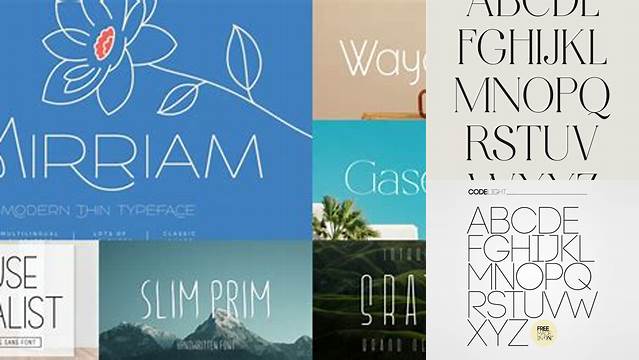
Thin Fonts: Your Ultimate Guide To Elegant Typography
In the realm of typography, thin fonts stand as a testament to minimalist elegance and modern design sensibilities. These fonts, characterized by their slender strokes and delicate appearance, have become increasingly popular in various applications, from branding and web design to print materials and user interfaces. This comprehensive guide delves into the world of thin fonts, exploring their characteristics, advantages, and best practices for effective utilization. We will discuss the nuances of selecting, pairing, and implementing these fonts to achieve the desired aesthetic and convey the intended message. So, guys, let's dive into the world of thin fonts and unlock their potential!
Understanding the Essence of Thin Fonts
Thin fonts are defined by their exceptionally light weight, where the strokes of the characters are significantly thinner than those of standard fonts. This characteristic lends them a refined and airy quality, making them ideal for projects that require a touch of sophistication or a modern, minimalist aesthetic. The primary purpose of thin fonts is to provide an understated elegance. They don't scream for attention but rather whisper their message with subtle grace. They allow other design elements to shine, and are excellent for when you want to highlight content without having the font itself be the focal point. They work well in conjunction with other heavier fonts to create contrast and visual hierarchy. The selection of a thin font is important, because not all fonts are created equal. Some fonts are inherently better suited for thin weights than others. Factors like legibility, character proportions, and design details play a crucial role in the overall impact of a thin font. For example, some fonts may become too fragile when rendered in thin weights, leading to illegibility, particularly at smaller sizes. Proper character design is key to the effectiveness of thin fonts. Well-crafted thin fonts feature a consistent stroke width and balanced character proportions. Designers meticulously consider how the thin strokes interact to maintain visual harmony. This careful attention to detail ensures that the font remains legible and visually appealing, even at smaller sizes or in various rendering environments. Understanding these factors is key to choosing the perfect thin fonts for your project.
Characteristics and Design Features of Thin Fonts
Thin fonts have a distinctive set of characteristics that distinguish them from other font weights. One of the most obvious is their incredibly fine strokes. The strokes, lines that form the characters, are significantly thinner than those of standard fonts, creating a delicate and airy appearance. This lightness is a defining trait of thin fonts, giving them a sense of understated elegance and modern sophistication. The strokes of thin fonts can be described as minimalist, which emphasizes the essential forms of the letters. This minimalistic approach to design contributes to the font's visual lightness and elegance. The design and characteristics of these fonts are not simply an aesthetic choice; they also influence how the font performs in different contexts. For example, their slender forms make them especially suitable for modern and clean designs. The spacing between letters and words is equally important in thin fonts. Proper spacing ensures that the characters remain distinct and readable, even at smaller sizes. Well-spaced thin fonts are easier on the eyes and convey a sense of clarity. Beyond the strokes and spacing, the choice of typeface also plays a huge part in the functionality of thin fonts. Some typefaces are designed with specific thin weights in mind. These typefaces are optimized for legibility and visual appeal in thin forms, making them ideal choices for designers who want to use this weight. The design features of these fonts are carefully considered to balance visual appeal with functionality, ensuring that the fonts remain readable and effective across a wide range of applications.
Benefits of Using Thin Fonts in Design
Using thin fonts in your design projects offers a variety of benefits. Their elegant and modern appearance can immediately elevate the visual appeal of a design, adding a touch of sophistication and style that other font weights may not provide. This is especially true in contexts where conveying a sense of luxury or premium quality is important. Thin fonts are perfect for giving a modern and minimalist look to a design. Their thin strokes and clean lines contribute to a streamlined and uncluttered appearance. Designers use thin fonts to create a sense of airiness and openness, making the design feel less dense and more inviting. This can be especially beneficial in web design, where users are easily overwhelmed by clutter. They can also be used to draw attention to other important design elements, like images or other content, by creating visual contrast. Their subtle nature allows them to function as supporting elements rather than dominating the design. This is particularly advantageous in branding, where a thin font can be used to complement the overall brand aesthetic without overshadowing the logo or other visual components. In terms of functionality, thin fonts can be used in a variety of ways. They are useful for headlines and titles, but are also useful for body text, especially in modern applications. The benefits of these fonts are varied and important for all modern designers.
Choosing the Right Thin Font for Your Project
Selecting the right thin font is a critical step in ensuring the success of your design project. It is important to consider several factors, from the specific project requirements to the overall aesthetic you are trying to achieve. The first step is to consider the context in which the font will be used. Is it for a website, a print advertisement, or a user interface? Each context has different requirements, especially in terms of readability and scalability. For example, a font that is easily readable at large sizes on a website might be difficult to read in small print on a business card. The overall aesthetic of the design is also critical when selecting a font. Are you going for a minimalist look, a modern vibe, or something else? The font should align with the overall style and tone of the design. Matching the font to the brand or message that you are trying to promote is important for cohesive branding. You also need to consider the legibility of the font, especially at smaller sizes. Thin fonts can sometimes be challenging to read, so you must ensure that the chosen font is easily legible in all its intended applications. Experimentation is crucial when choosing a thin font. Try out several different fonts and see how they look in different contexts. Testing the font in real-world scenarios, such as by creating mockups of your design, can help you evaluate its impact and overall performance. Take the time to experiment and evaluate before making a final choice.
Key Considerations for Font Selection
There are several key considerations to keep in mind when choosing thin fonts for a project. One of the most important is the font's legibility. Thin fonts can sometimes be challenging to read, especially at smaller sizes or on low-resolution screens. It's important to choose a font that maintains its clarity and readability in a variety of contexts. Test the font at different sizes and on different devices to ensure that it remains legible. Another factor to consider is the font's character set. Does the font include all the characters you need, including special characters, symbols, and different language support? Make sure that the font has the range of characters that you will use, in addition to the basic letters and numbers. Also consider how the font will be used in different contexts, such as headlines, body text, and user interface elements. Each use case has different requirements, so choose a font that is suitable for all intended applications. The overall visual appearance of the font should also be a key consideration. Does the font's style and design align with the overall aesthetic of the project? Choose a font that complements the other design elements and supports the message you are trying to convey. Consider also the font's licensing terms. Make sure you are allowed to use the font for your intended purposes, whether for personal or commercial use. Be aware of the specific licensing requirements of the font. In addition to the above, you should try to find a font that looks good in different weights and styles. This allows for more versatility and design options, giving you more freedom to adjust your designs.
Popular Thin Font Styles and Their Characteristics
Several thin font styles have gained immense popularity. Each style has its unique characteristics and advantages, making them suitable for different design purposes. One of the most widely used is the sans-serif style, known for its clean lines and modern appearance. These fonts typically lack the small decorative strokes (serifs) found at the ends of letters, which contributes to their minimalist aesthetic. They work well in a variety of applications, from websites and apps to print materials. Some popular examples of sans-serif thin fonts include Helvetica Neue UltraLight, Open Sans Light, and Lato Light. Another popular style is the serif style, which includes small decorative strokes at the ends of letters. These fonts can add a touch of elegance and sophistication, particularly in body text. Although they are often used in thicker weights, thin fonts in the serif style offer a distinctive look. Popular examples of serif thin fonts include Playfair Display Light and Libre Baskerville. The monospaced fonts, where each character occupies the same horizontal space, are another option. These fonts are often associated with technology and programming, but can also be used for design purposes. The uniform spacing of monospaced fonts can provide a sense of order and precision, making them suitable for displays of data or text. Examples of monospaced thin fonts include Courier Prime and Monaco. Choosing the right style of thin font is key to expressing the message you want to convey.
Pairing Thin Fonts with Other Font Weights
One of the most effective ways to use thin fonts is to pair them with other font weights, such as regular, bold, or extra bold. This approach allows you to create visual contrast and establish a clear hierarchy within your design. It helps to guide the reader's eye and highlight important information. A common technique is to use a thin font for headings and titles and a regular or semi-bold font for body text. This creates a clear distinction between different levels of information. The thin font grabs attention, while the regular font provides legibility for the main content. Another effective pairing involves using a thin font for supporting elements, such as subheadings, captions, or small snippets of information. In this case, the thin font acts as a subtle visual cue, drawing attention to less critical information without overpowering the main content. You can also experiment with pairing a thin font with a bold or extra-bold font for headings and key phrases. This creates a striking contrast that immediately captures the reader's attention. The bold font emphasizes important information, while the thin font adds a touch of elegance and refinement. When pairing different font weights, it's important to consider the overall aesthetic of your design. Make sure the font pairings complement each other and create a cohesive visual experience. Avoid combinations that clash or create visual discord. By experimenting with different pairings and observing the impact of each choice, you can learn how to select and use thin fonts in ways that complement your project goals.
Creating Visual Hierarchy with Font Weights
Creating a visual hierarchy with font weights is a crucial aspect of effective design. The use of thin fonts can play a vital role in establishing this hierarchy, helping to guide the reader's eye and communicate information clearly. One way to use thin fonts for hierarchy is to employ them for headings and titles. The delicate nature of a thin font creates an immediate visual contrast with heavier font weights. This makes the headings stand out without being too overwhelming. Think about a website: the title of the page can use a thin font to stand out from the header. Similarly, you can use a thin font for subheadings, captions, or supporting elements. These can draw attention to relevant details without competing with the main text content. This is especially useful for creating a clear visual flow, where the reader knows what to look at first and where to move to next. Another key aspect of creating a visual hierarchy is to be consistent. Use the same font weights and styles across your design to create a sense of order and unity. This consistency helps to create a seamless reading experience. Another important thing is to experiment with different font pairings and observe their impact. Test the different combinations to ensure the hierarchy is clear and easy to understand. The right combination of font weights can improve the reading experience and make your designs more engaging and effective. Understanding the principles of visual hierarchy and employing thin fonts strategically can greatly enhance the overall effectiveness of your design projects.
Font Pairing Best Practices and Combinations
Effective font pairing is critical to create visually appealing and readable designs. The use of thin fonts often requires careful consideration of how they will interact with other fonts. First, consider the overall aesthetic of your design. Choose font pairings that complement each other and align with the project's goals. If you aim for a modern and minimalist look, consider pairing a thin font with another clean and modern typeface, like sans-serif fonts. Second, pay attention to contrast. Using a thin font for headings and titles paired with a regular or bold font for the body text can create a visual hierarchy and improve readability. You can use a thin sans-serif font for the headings and a heavier serif font for the body text. This pairing provides enough contrast while maintaining visual harmony. Experiment with different font combinations to find the best fit for your project. Third, when selecting fonts, focus on the relationship between the letterforms. Look for fonts with complementary design characteristics, but avoid pairings that are too similar, as they can create confusion. Consider the x-height, the stroke thickness, and the overall shape of the letters. For example, you could pair a thin font with a font that has a slightly larger x-height to improve readability. Lastly, consider using online font pairing tools and resources. These tools can provide suggestions for font pairings and help you visualize how different combinations will look. Using these tools will help you get the most out of your thin fonts and create attractive designs.
Optimizing Thin Fonts for Readability and Usability
Optimizing thin fonts for readability and usability is crucial for ensuring that your design is easily accessible and enjoyable to your audience. Several factors contribute to the readability of thin fonts, including their size, line height, and the background they are placed on. When using thin fonts for body text, choose a font size that is large enough to read comfortably. Too small, and the thin strokes may become difficult to distinguish, especially on screens with lower resolution. Experiment with different font sizes to find the optimal balance between visual appeal and legibility. Line height, also known as leading, is another important factor to consider. Adjusting the line height can significantly impact the readability of thin fonts. In general, slightly more generous line heights are preferable, as they provide additional space between lines of text. This can prevent the lines from bleeding into each other and enhance the overall reading experience. The background also has an impact on the readability of the text. Make sure that the background color provides sufficient contrast with the font color. For example, using a thin font on a light background is usually more readable than a dark one. Experiment with different background colors and font colors to find the optimal contrast ratio. By paying close attention to these details, you can ensure that your thin fonts are both visually appealing and highly readable.
Ensuring Legibility in Various Contexts
Ensuring the legibility of thin fonts in various contexts requires a strategic approach. The factors to consider include the display size, the viewing distance, and the type of device being used. When designing for different devices, you should ensure that your chosen font looks good on each device. It’s also important to test the font across a range of screen sizes and resolutions. For instance, a font that is readable on a desktop monitor might be difficult to read on a mobile phone, especially if the screen is small. Another critical factor is the viewing distance. Consider how far away users will be from the text. If the design is for a billboard, you may need a larger font size to ensure that it is legible from a distance. For smaller screens, like mobile phones, you will need to ensure the font is legible up close. Different screen resolutions and screen technologies also affect readability. Some screens have higher resolutions, leading to sharper and more detailed text, while others have lower resolutions, which can cause the strokes of thin fonts to blur. Consider the impact of different screen technologies, such as OLED or LCD, as these technologies affect how the font is displayed. To optimize the text for legibility, you need to make sure the font maintains its clarity and legibility in different lighting conditions. Take into account the font's weight, stroke thickness, and overall design. Careful testing and adjustments across different contexts will help make sure that thin fonts are clear to read and are user friendly.
Adjusting Font Size, Leading, and Tracking for Optimal Results
Adjusting font size, leading, and tracking is an effective way to optimize thin fonts for optimal results. Each of these settings influences how the text appears and how easy it is for the reader to understand the text. Font size is a key factor. For thin fonts, the size should be big enough so that the thin strokes are clear and easy to read. It can depend on the device and the distance from which the text is viewed. In the case of body text, it's best to use a larger size for readability, while titles and headings can be slightly larger. The leading, or line height, refers to the space between lines of text. Adjusting leading can significantly enhance readability, especially for thin fonts. Providing sufficient space between lines can prevent lines from overlapping and improve the reading experience. A slightly larger leading value is usually preferred, as it gives the text more room to breathe and reduces visual clutter. Tracking, or letter spacing, refers to the space between individual characters. Adjusting the tracking can also have a big impact on the readability of thin fonts. In some cases, slightly increasing the tracking can improve the legibility of thin fonts by making the characters more distinct, particularly at smaller sizes. The best practice is to experiment and adjust these parameters, checking the readability on different devices and in different contexts. Adjusting the font size, leading, and tracking is a great way to ensure thin fonts are easy to read and appealing to readers.
Best Practices for Implementing Thin Fonts
Implementing thin fonts effectively requires a thoughtful approach. The goal is to ensure that the font enhances your design while maintaining readability and usability. Before implementing, it's critical to test the font across different devices and browsers. Web designers need to test their designs on various devices. On mobile phones and tablets, the font may appear differently. Cross-browser testing ensures the fonts appear as intended, regardless of the web browser used. The placement of the font is also important. Use thin fonts strategically, such as for headlines, subheadings, or accents, and use heavier fonts for body text, to maintain a good reading experience. This way, you can use the font without it being the only thing in the design. Consider the contrast of the font against the background. If you're using a thin font against a light background, you may want to use a darker font color to increase the contrast. The same applies for dark backgrounds. Make sure the font is legible and easy to read. To optimize performance, it is recommended to use web fonts sparingly to avoid slow loading times. If possible, opt for optimized font files and consider using font subsets to load only the characters you need. When implementing thin fonts, it is best to keep these key aspects in mind.
Using Thin Fonts in Web Design: Tips and Tricks
Using thin fonts effectively in web design requires a nuanced approach to ensure both visual appeal and optimal performance. One of the most important things is the font's legibility. Web designers should choose fonts that are easy to read on different screen sizes and resolutions. Web designers must test fonts on various devices to ensure they appear correctly. For web designs, using a good contrast between the text and the background is important. This ensures the font is easily visible, regardless of the lighting conditions. The font’s visual hierarchy must also be clear. This can be achieved through appropriate sizing, use of different font weights, and strategic placement of the fonts on the web page. Another important thing to consider is the performance of the website. Web fonts can add to the page load time, which could be bad for user experience. To reduce loading times, use optimized font files and use font subsets. Be aware of the font’s licensing terms and use them according to the licenses. This will avoid legal issues. Implement thin fonts strategically, such as for headings, titles, or accents, instead of body text. By applying these tips and tricks, web designers can improve user experience and create visually appealing websites.
Print Design Considerations for Thin Fonts
Print design has unique considerations when using thin fonts. The quality of the printing process, paper, and resolution have a direct impact on the font's appearance. For print designs, the first step is to test the font on the chosen paper stock. Some paper stocks absorb ink more readily than others. They can cause the thin fonts to appear blurry or indistinct. The best idea is to choose a paper stock that provides a smooth surface. Then, optimize the font for the printing resolution. It is usually best to use a high resolution to ensure that the thin fonts appear crisp and clear. You can use higher-resolution images and graphics. The right printing process also matters. For example, offset printing provides sharper results. In addition, the use of different color modes, such as CMYK, can have an effect on the font's appearance. Use color modes that can give you better print results. Consider the font's size and weight. In print, thin fonts need to be sized appropriately, ensuring the font is easy to read. The print design needs to be done with good contrast to guarantee readability. Also, think about the font's overall design. You have to choose a font that is suitable for the design. Be aware of the font's licensing terms and use them according to those terms. This helps you avoid any legal issues. By thinking about these points, you can be sure that the design will be effective and visually appealing.
Avoiding Common Mistakes with Thin Fonts
Avoiding common mistakes is essential for effective design using thin fonts. One of the biggest mistakes is using a thin font for body text. Thin fonts often lack readability, making it challenging for users to process large amounts of text. Avoid using them for extended passages; instead, use them for headings or short snippets of text. Another mistake is using fonts without considering the target audience. Different fonts appeal to different demographics, so choose a font that resonates with your audience. Make sure your font is suitable for your audience. Poor legibility is also a common mistake. Thin fonts can be difficult to read, especially at small sizes. Make sure you test the font's readability across different devices and sizes. Ensure the font stays crisp and clear in any context. Ignoring the contrast between the font and the background can also be problematic. If the font doesn't contrast properly with the background, the text can be hard to read. Select a background color that complements the font to improve legibility. Make sure there is a sufficient contrast between the text and the background. Additionally, one should not underestimate the importance of spacing. Poorly spaced characters can cause confusion. Use appropriate spacing to improve readability. By avoiding these common mistakes, designers can ensure the effective use of thin fonts.
Legibility Pitfalls and How to Overcome Them
There are several legibility pitfalls associated with thin fonts, and it is important to recognize and overcome them to create successful designs. One of the biggest challenges is reading thin fonts at small sizes. Thin strokes can become blurry or indistinguishable when displayed at smaller sizes. To overcome this, ensure you select a font that is well-designed for the thin weight and test its readability at various sizes and resolutions. Increase the font size. Another pitfall is poor contrast. Insufficient contrast between the text and the background can make the font difficult to read. Choosing a background color that complements the font is very important. You can also make the text darker or lighter. Poor spacing can also make a font hard to read. The spacing between characters, words, and lines must be correct. You can adjust the tracking and leading to enhance readability. Another pitfall to avoid is using the wrong font. Some fonts are just not suitable for thin weights. Ensure that the font is designed for legibility, even in thin weights. To solve this, test the font on different devices. By recognizing these pitfalls, you can take corrective actions to ensure your design is accessible and user-friendly.
Ensuring Brand Consistency with Thin Fonts
Maintaining brand consistency when using thin fonts is very important for creating a strong brand identity. Thin fonts can be incorporated into a brand's visual language in a way that reinforces its identity. First, you must align the font with the brand's overall style and personality. The font you pick should reflect your brand’s values. Consider the overall tone and message of the brand. Second, use the font consistently across all of the brand's marketing materials. From the website and social media to print materials, maintain consistent use of the font. This helps establish recognition and reinforce brand identity. Use the font in headings, subheadings, and other supporting elements to add a touch of elegance and modernity. Integrate thin fonts into your visual identity, like your logo, to create a signature look. Make sure to apply the font in various ways that align with the brand guidelines. Lastly, by staying consistent with the use of your thin font, you can build brand recognition and maintain a strong and cohesive brand identity.